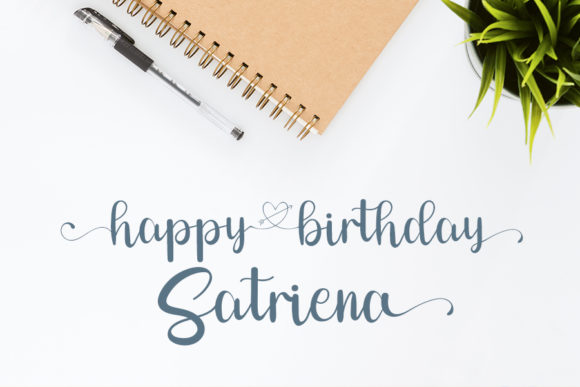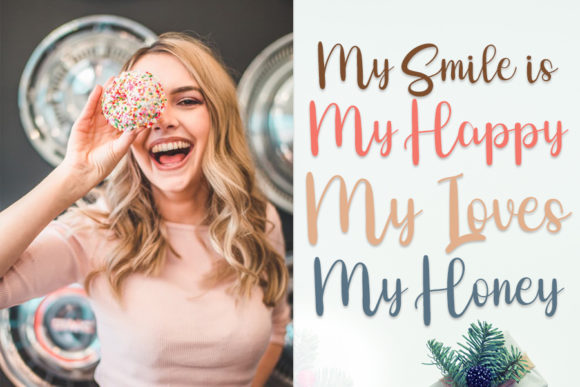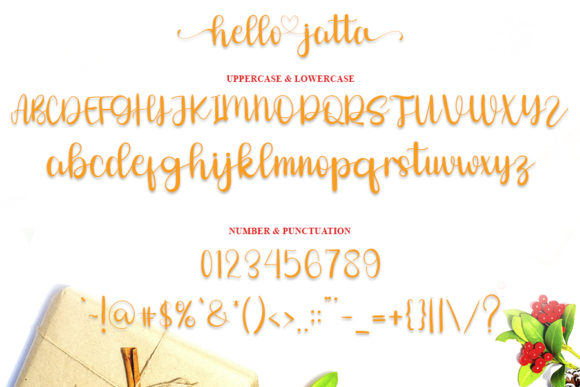
Meet Your New Best Friend in Typography
Have you ever found yourself lost in the world of fonts, searching for the perfect one to capture the essence of your creative project? You know, that moment when everything comes together, and you feel like you’re speaking directly to your audience’s hearts? That’s exactly what happens when you stumble upon the Hello Jatta Font.
This romantic script font is a masterclass in balance and elegance. Not too thin, not too thick, Hello Jatta Font is designed to enhance the beauty of your projects, making it a valuable asset for designers. With its delicate and dreamy look, it’s perfect for adding a touch of whimsy to your designs. Plus, being PUA encoded means you can access all of the glyphs and swashes with ease, giving you endless possibilities to experiment and create.
Hello Jatta Font Key Features
- Font Family: Hello Jatta is a custom font family designed for Punjabi and other languages, offering a unique blend of traditional and modern typography.
- Unique Characteristics: The font features a unique blend of traditional and modern typography, with intricate details and ornaments, making it a standout choice for designers and typographers.
- Language Support: Hello Jatta supports multiple languages, including Punjabi, Hindi, and English, making it an ideal choice for multilingual designs and publications.
Hello Jatta Font Review
Overall, I think the Hello Jatta Font is a great choice for designers who want a fun and playful font. Here’s what I like about it:
- ✨ Unique style: The font has a distinctive, hand-drawn feel that’s sure to grab attention.
- ✨ Versatile: Hello Jatta comes in a range of weights and styles, making it suitable for everything from headings to body text.
- ✨ Friendly: The font is approachable and easy to read, making it perfect for designs that need to be welcoming and engaging.
- ⚠️ Limited character set: The font may not include all the characters you need for certain languages or symbols.
- ⚠️ Not ideal for long blocks of text: Due to its playful nature, the font can become overwhelming when used for large amounts of text.
In terms of overall impression, I’d say the Hello Jatta Font is a great choice for designers who want to add some personality to their designs. It’s perfect for headings, titles, and other design elements where you want to make a statement. Just be mindful of its limitations and use it in moderation.
Getting the Most Out of the Font
To get the most out of the Hello Jatta font, consider the following tips:
- Use the font in bold or italic styles to add emphasis and create visual interest.
- Experiment with different font sizes and colors to create a cohesive design.
- Pair the font with other fonts to create a unique and visually appealing design.